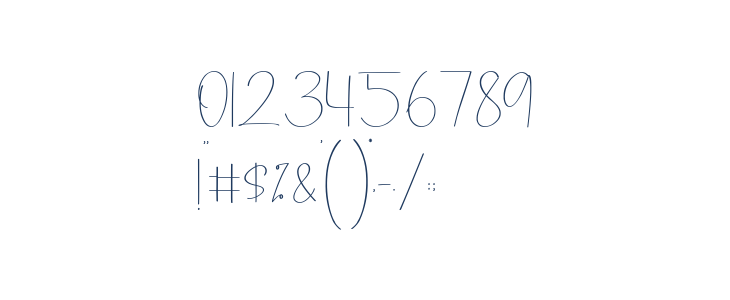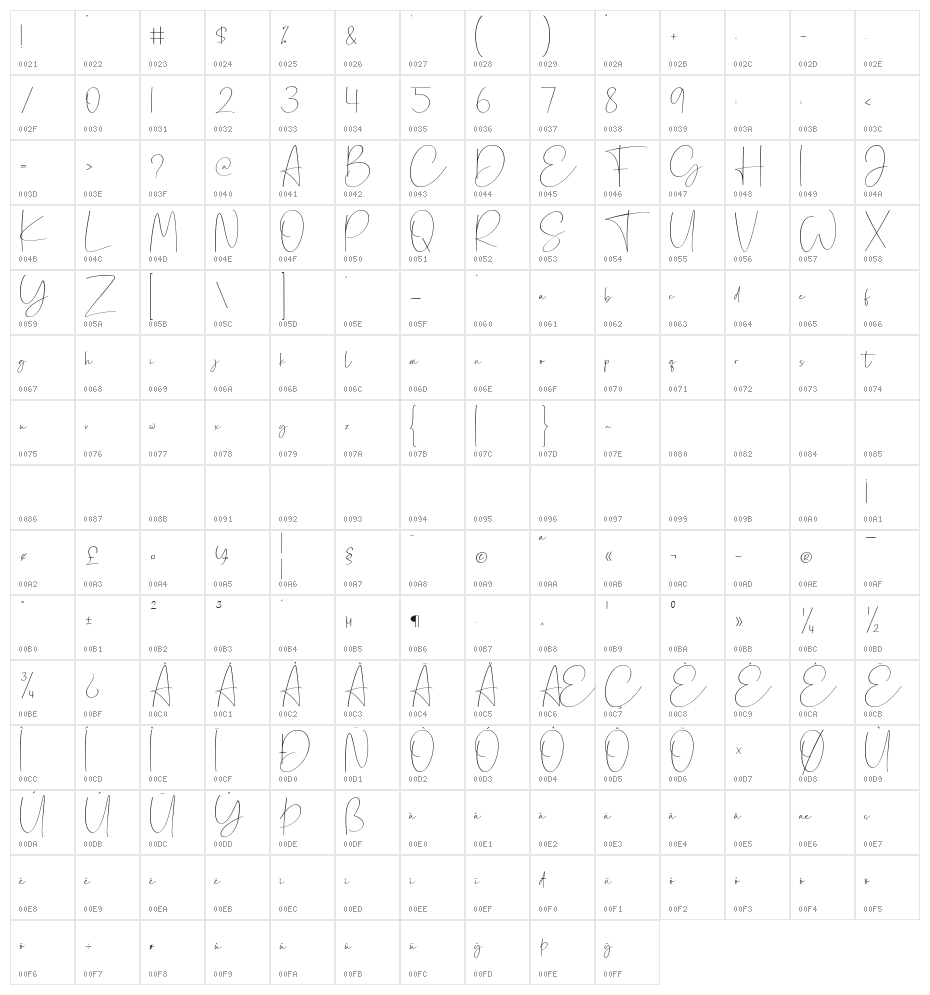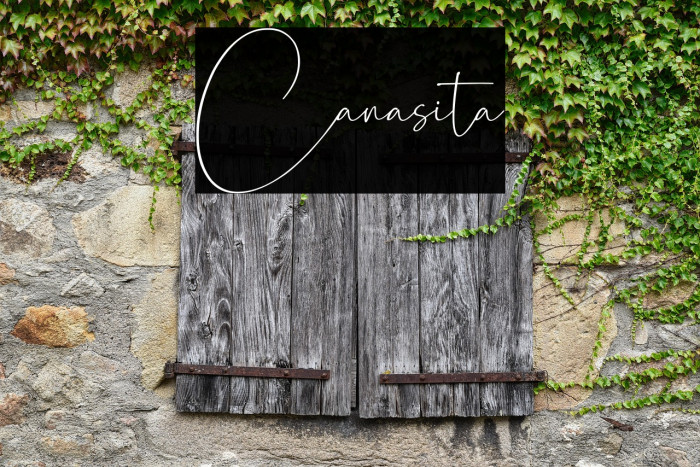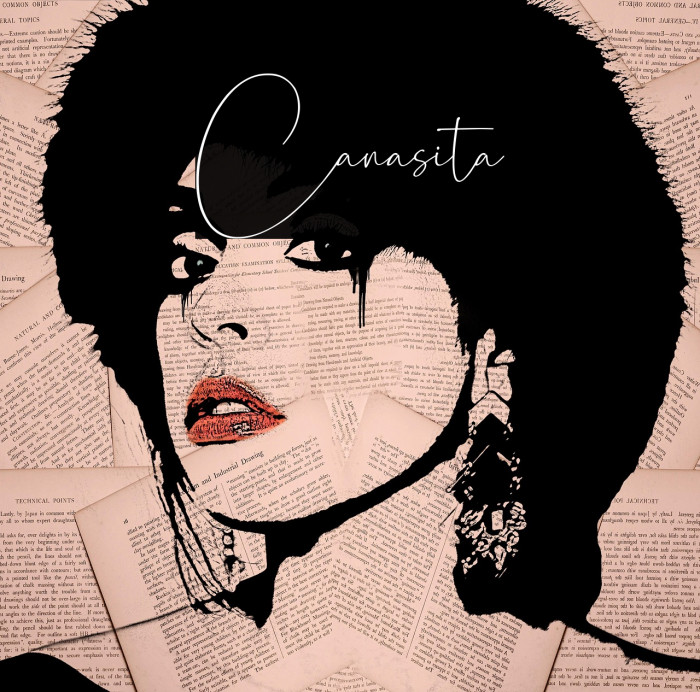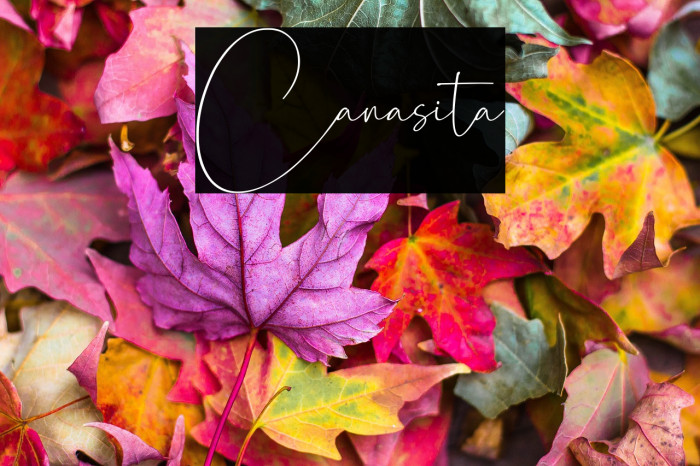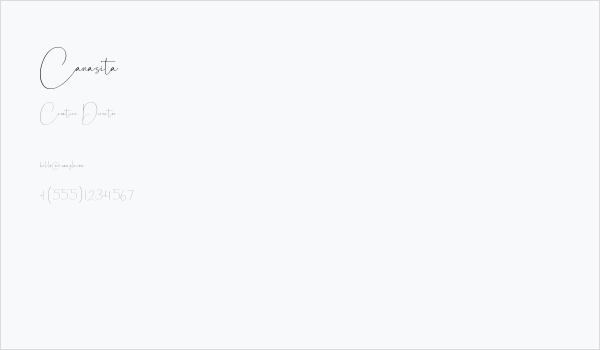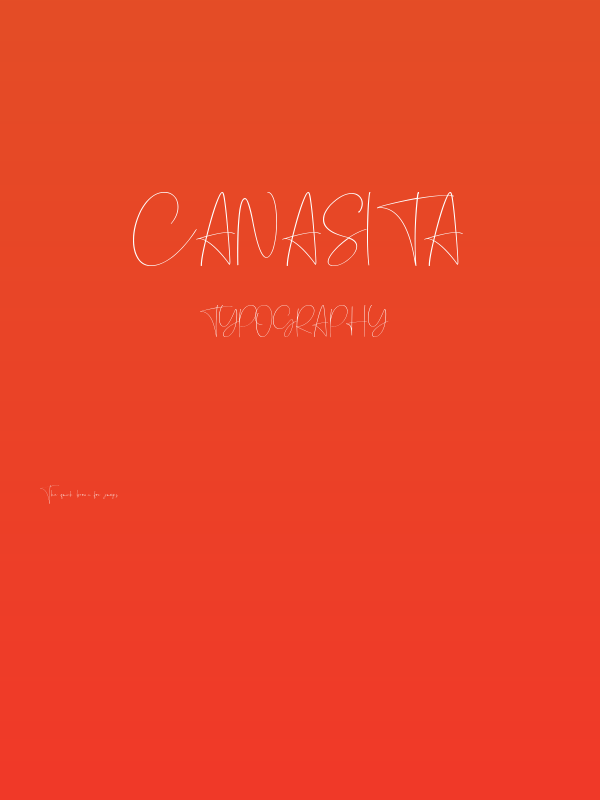
Canasita Font
Canasita Description
This font features a delicate, handwritten style with a whimsical and airy feel. The characters are thin and elongated, giving them a graceful and elegant appearance. The uppercase letters are tall and slightly irregular, adding a playful touch, while the lowercase letters maintain a consistent flow with subtle variations in stroke width. The numerals are similarly styled, with a light and open structure that complements the overall design. Special characters are included, maintaining the same slender and artistic quality. This font is perfect for projects that require a personal and artistic touch.
| Proposed Projects | Ideal for wedding invitations, greeting cards, personal branding, and artistic projects. |